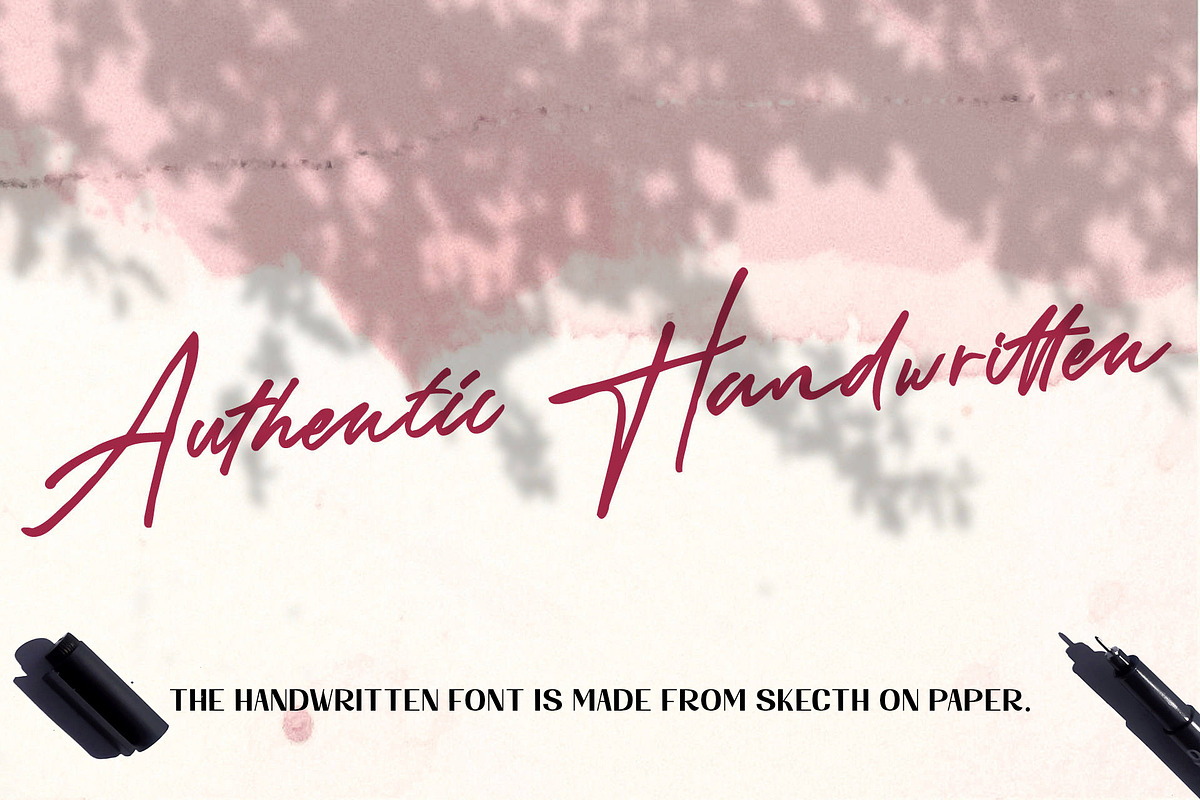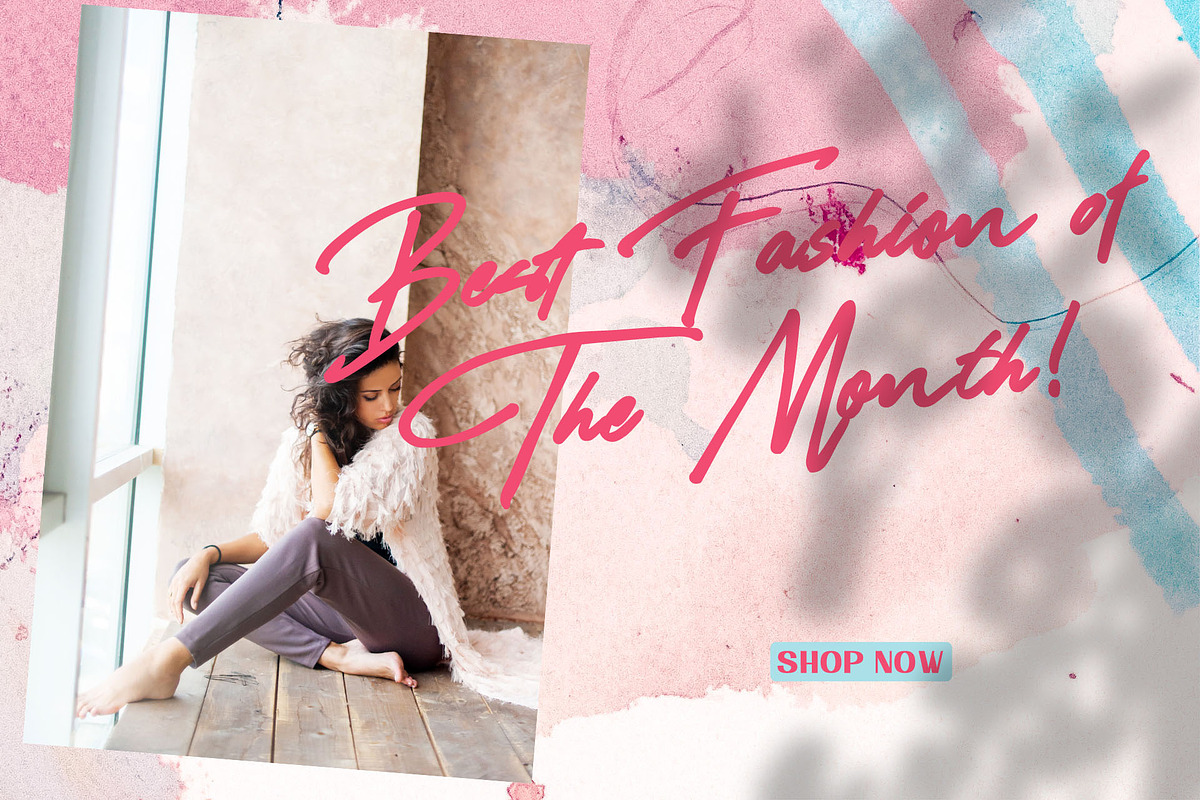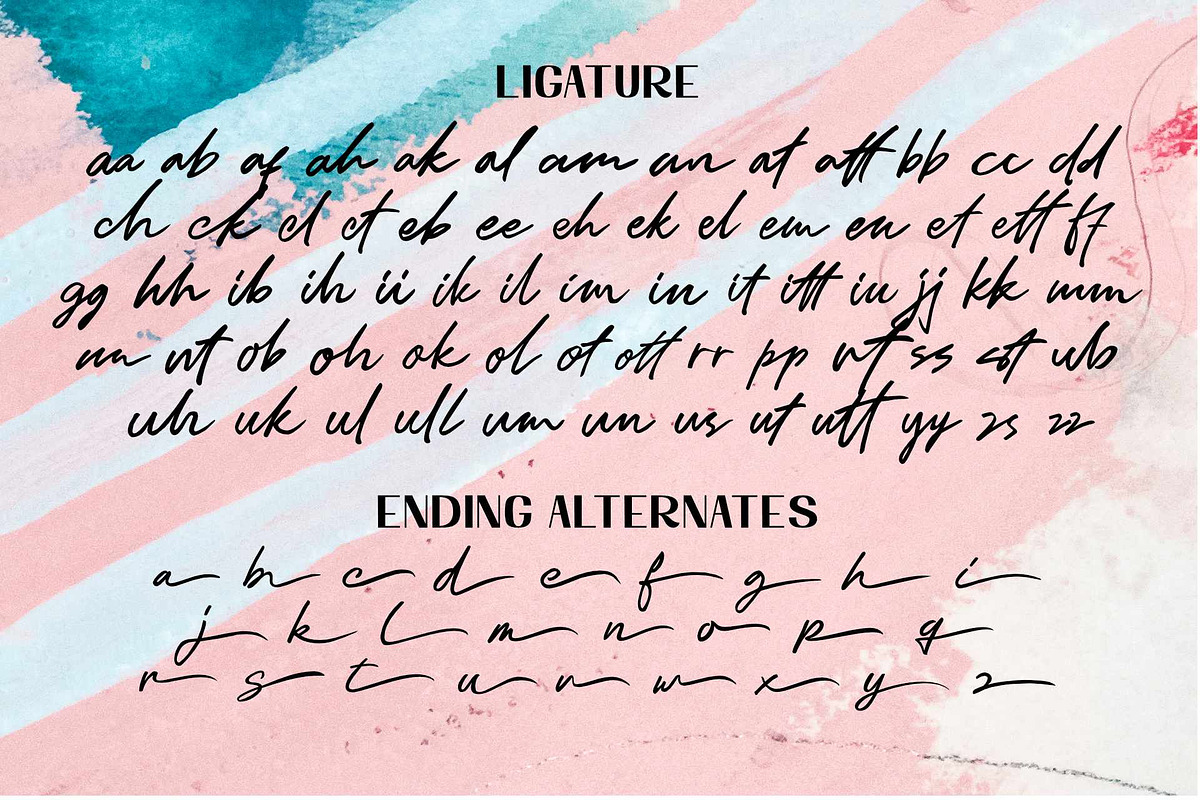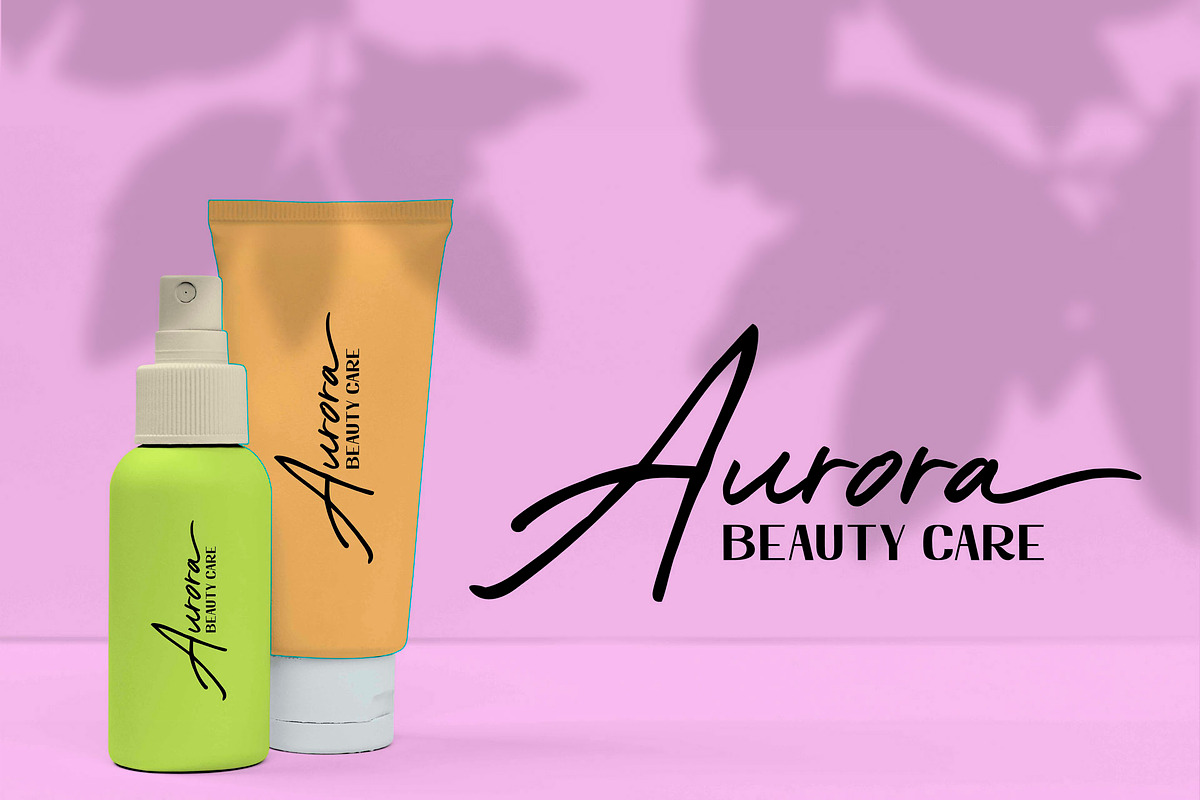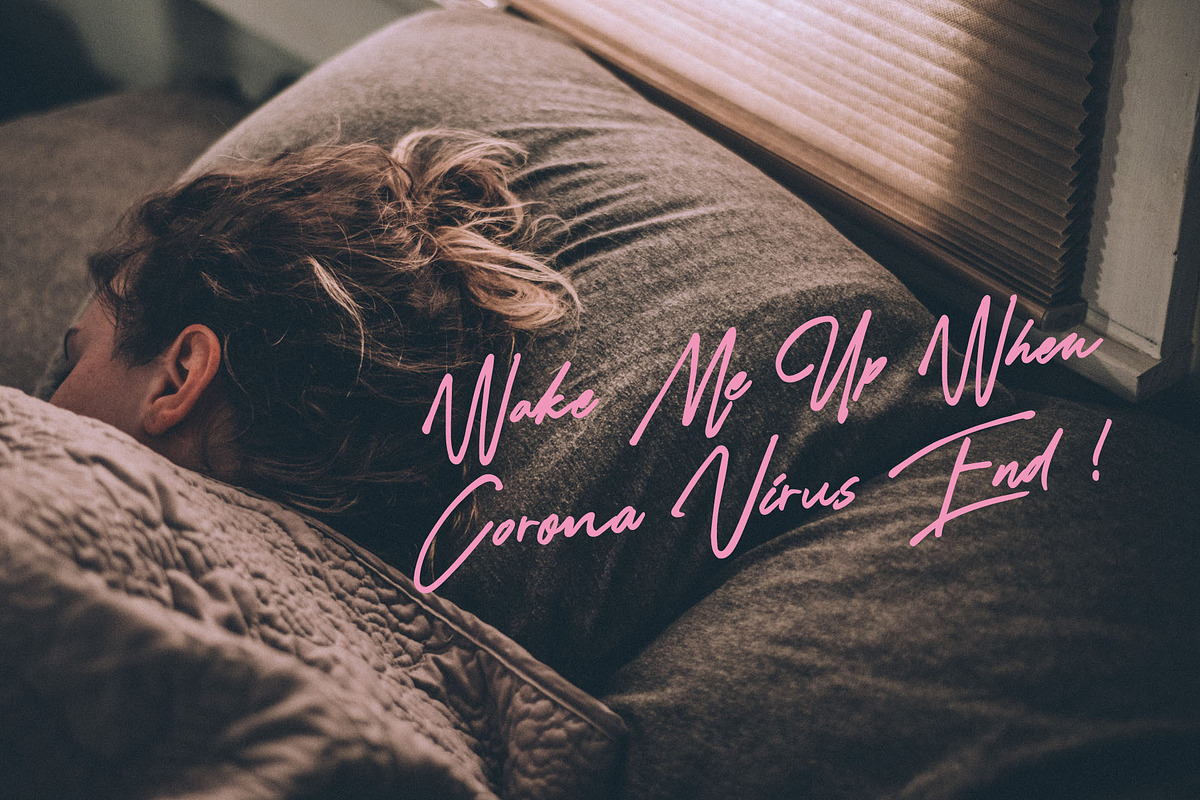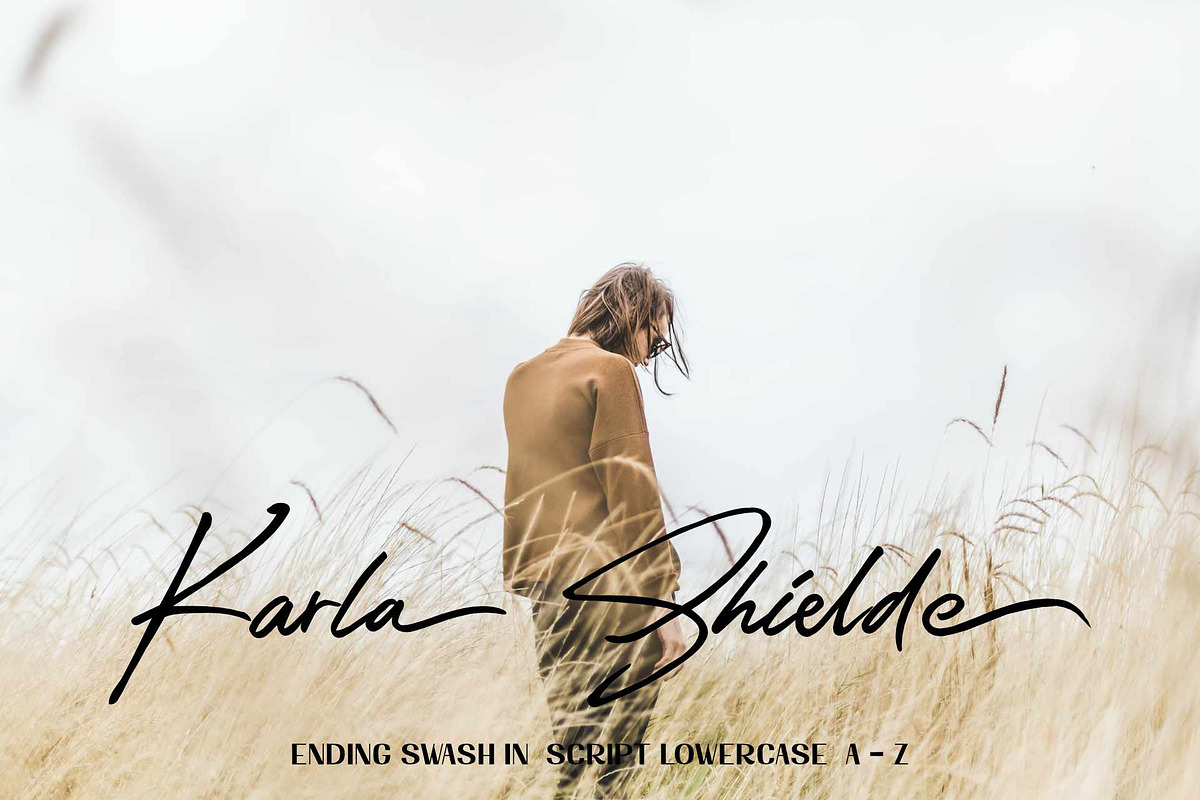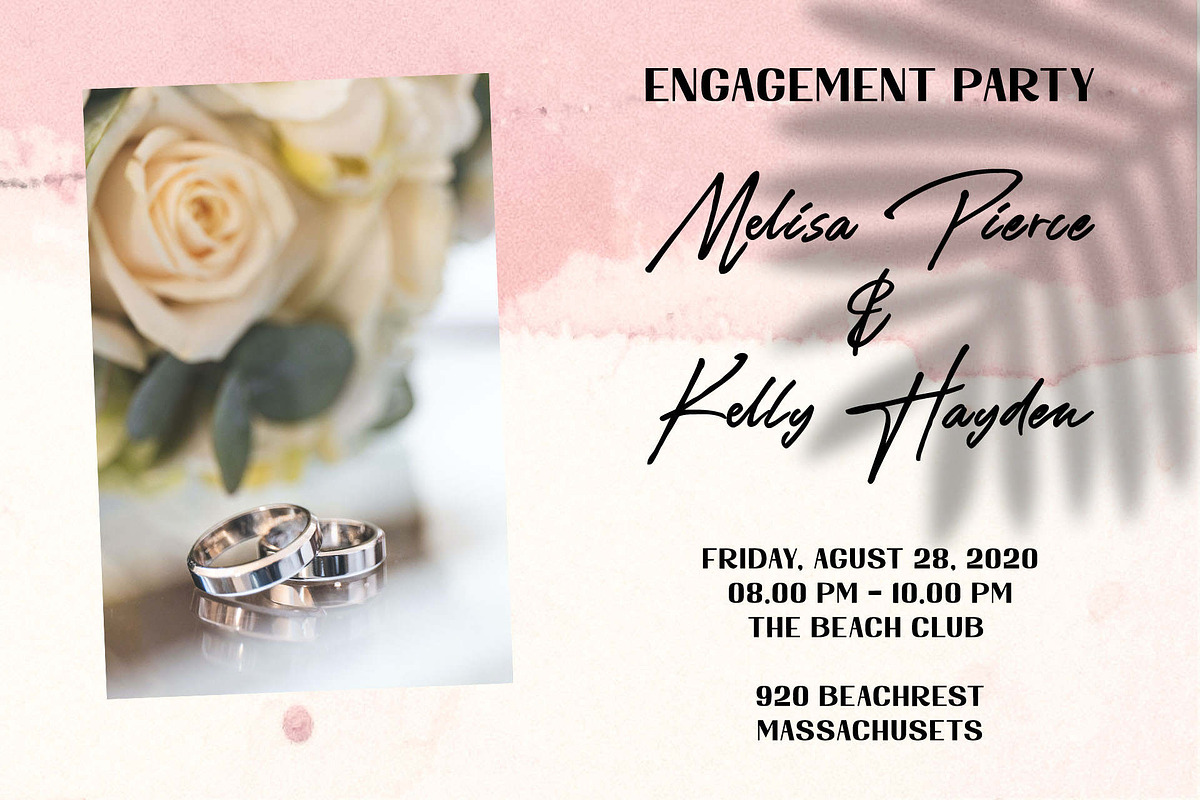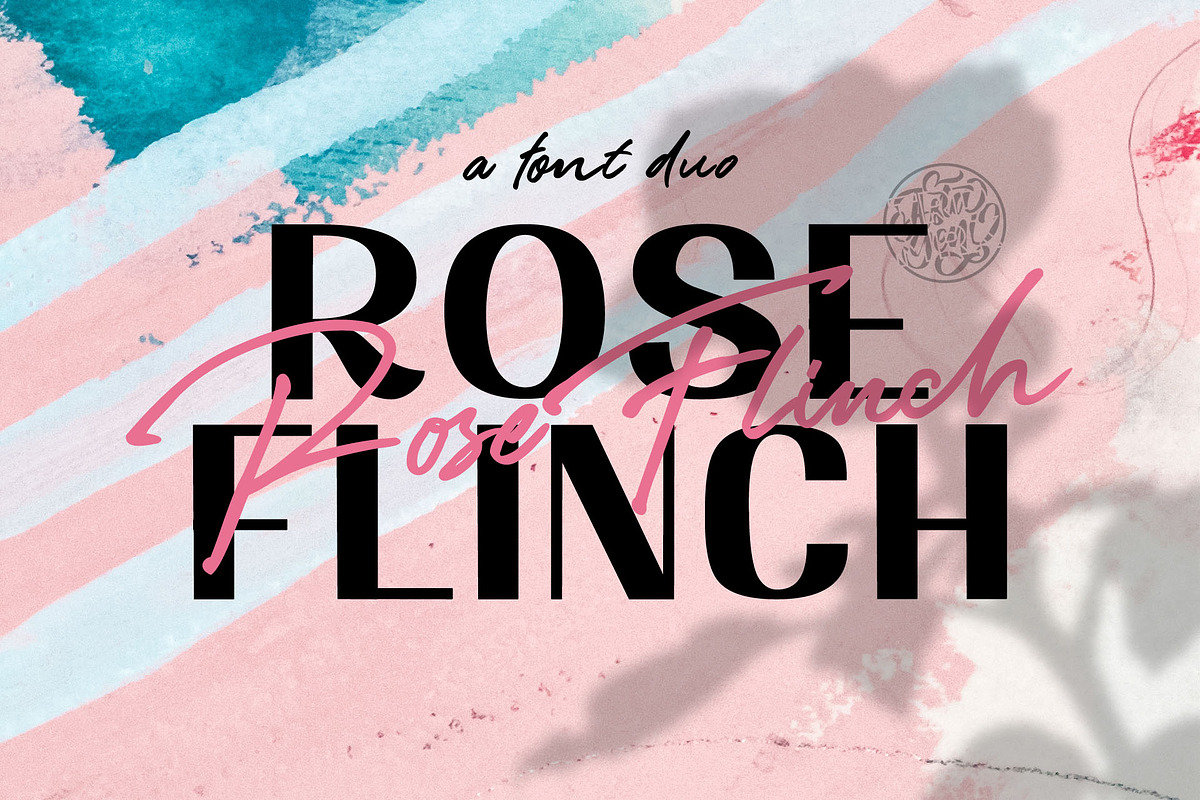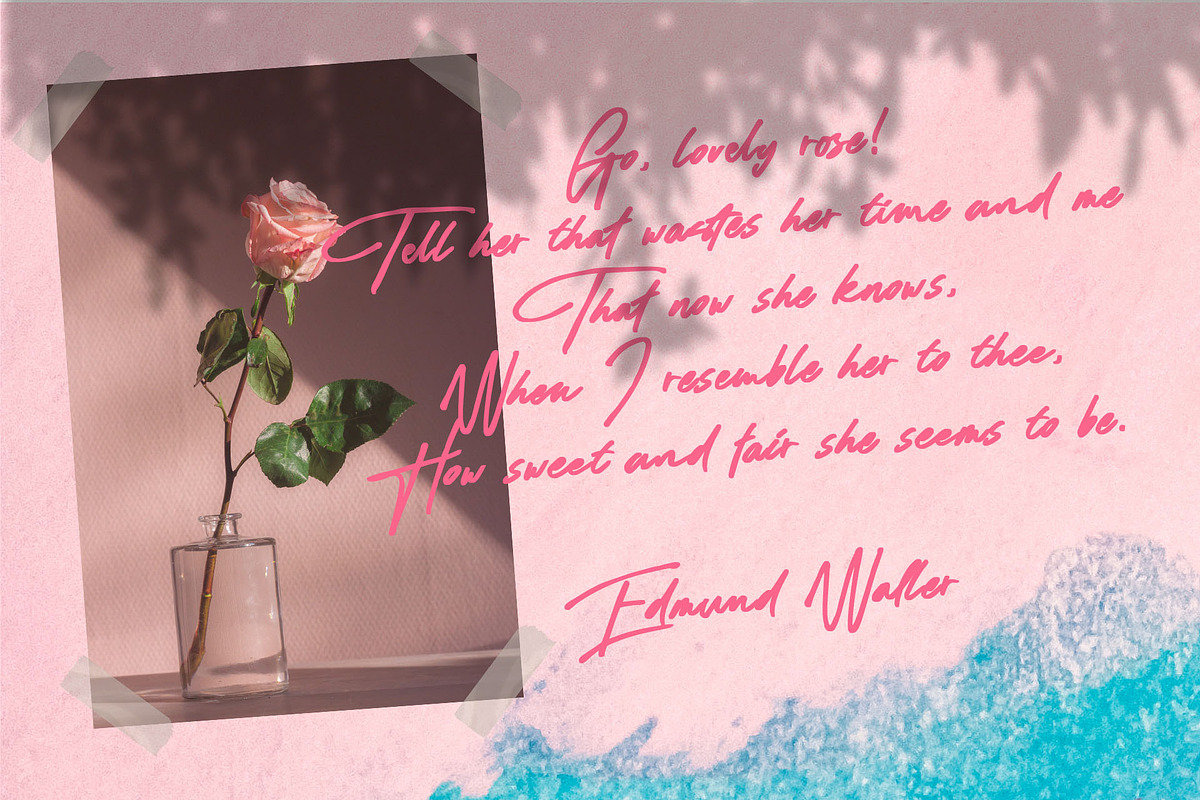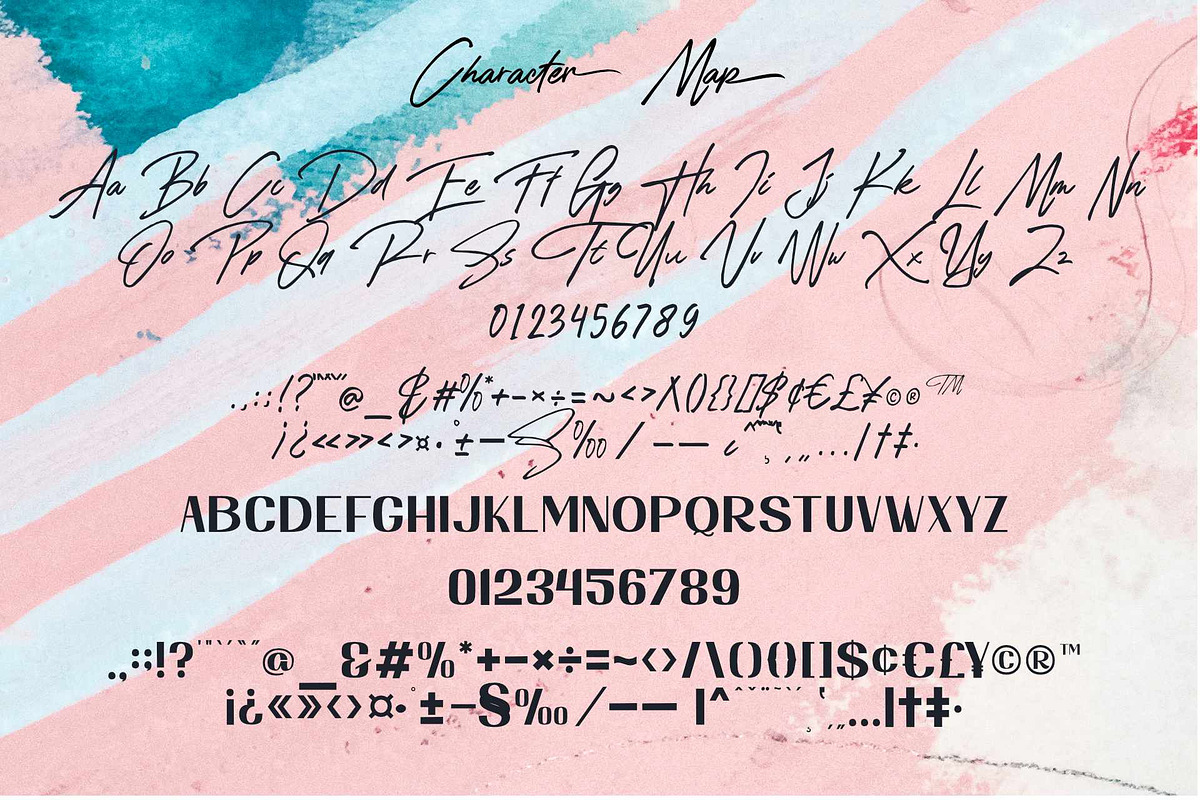
Rose Flinch Duo
Rose Flinch is a font duo signature style font and serif style fonts, this font is perfect pairing for watermarks, invitations, stationery, wedding designs, social media posts, advertisements, product packaging, product designs, labels, photography, logo, special events and more.
Rose Flinch is equipped with many additional features that allow you to customize your text. You will get a complete set of uppercase and lowercase, multilingual, punctuation, ligatures, stylistic alternates a-z in handwritten style.
the multilingual glyph is ÀÁÂÃÄÅAÆÇCÈÉÊËEÌÍÎÏÑN ÒÓÔÕÖØŒÙÚÛÜÝŸÞÐLSŠZZŽ àáâãäåaæçcèéêëeìíîïnñòóôõöøœ ùúûüµýÿþðlsšzzžß